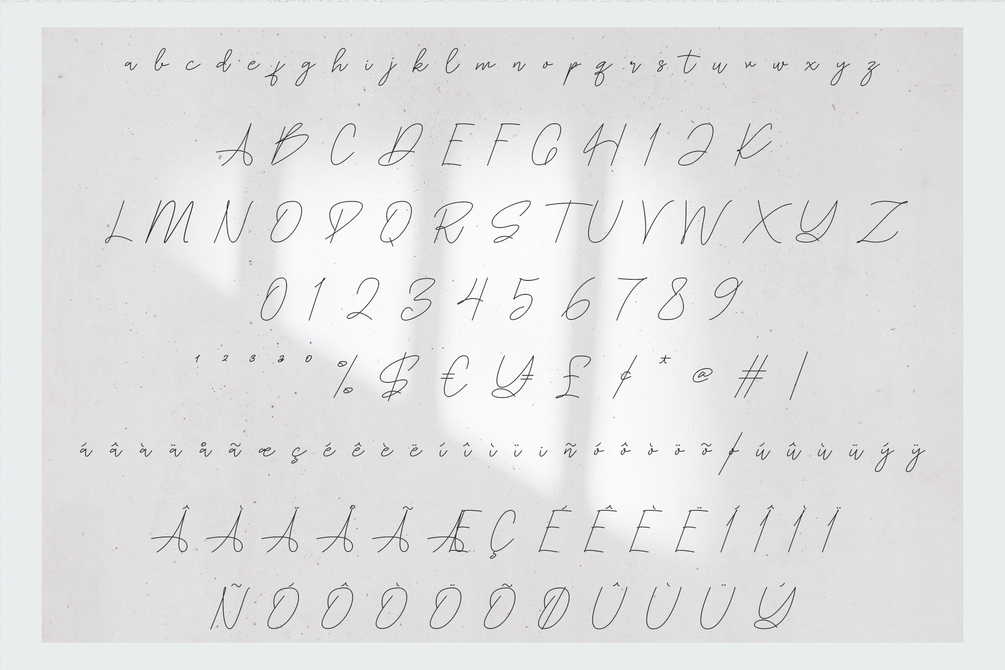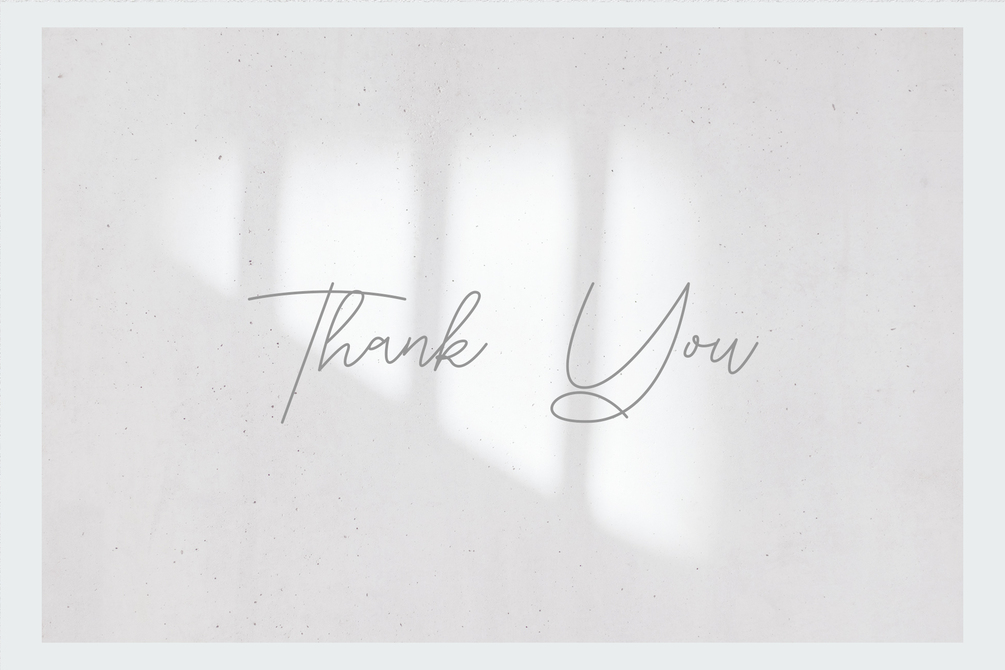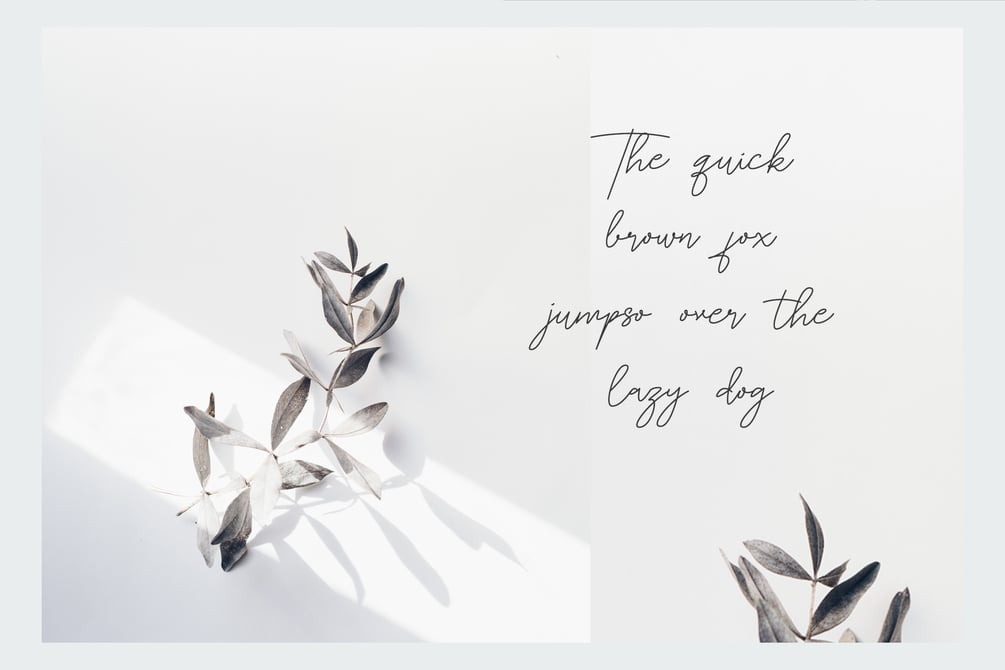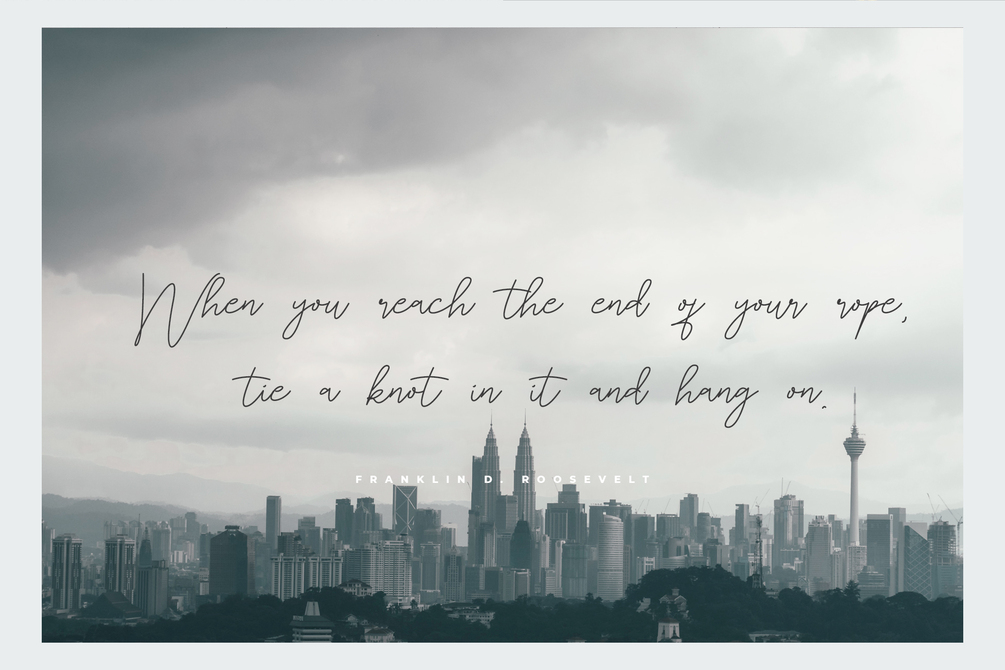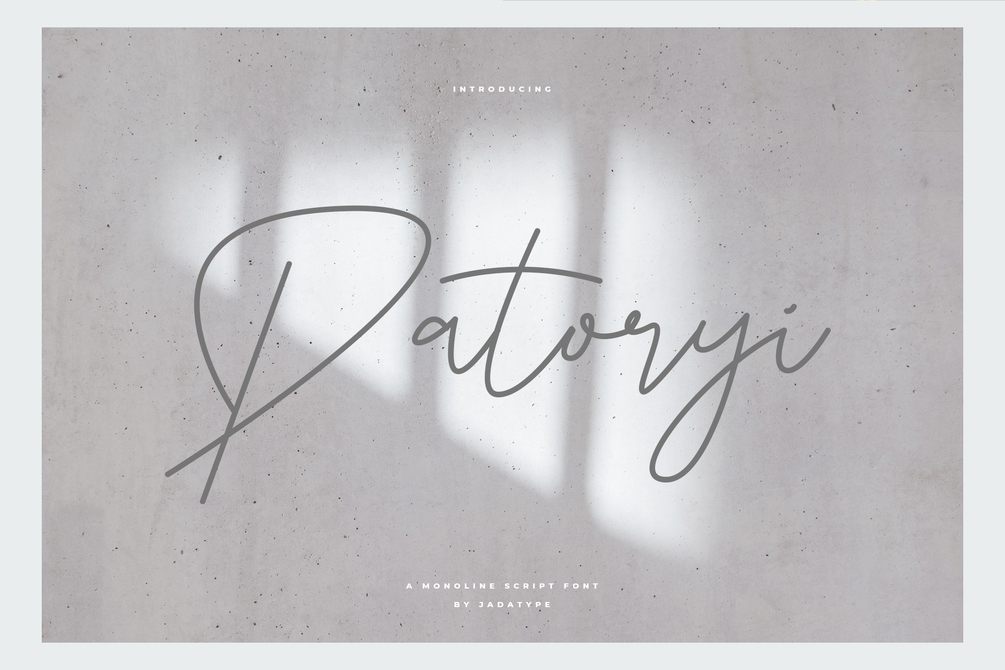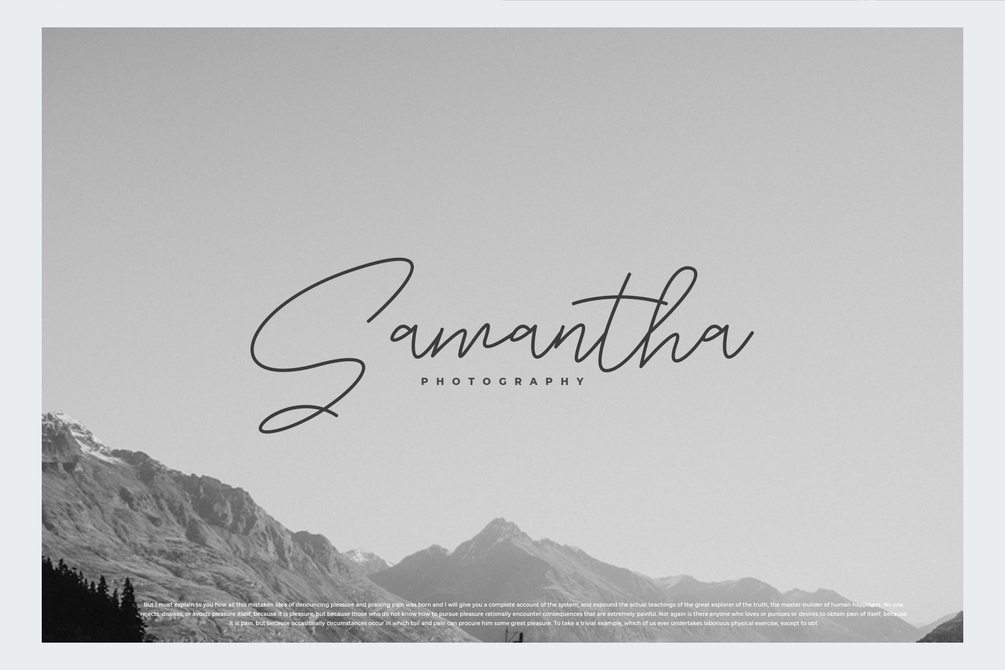
Patoryi
Patoryi is a script font with stylish monoline. suitable for branding, music cover, logotype, products, handwritten and so on. contains standard English letters, numbers, punctuation, and several accents that support multilingualism.